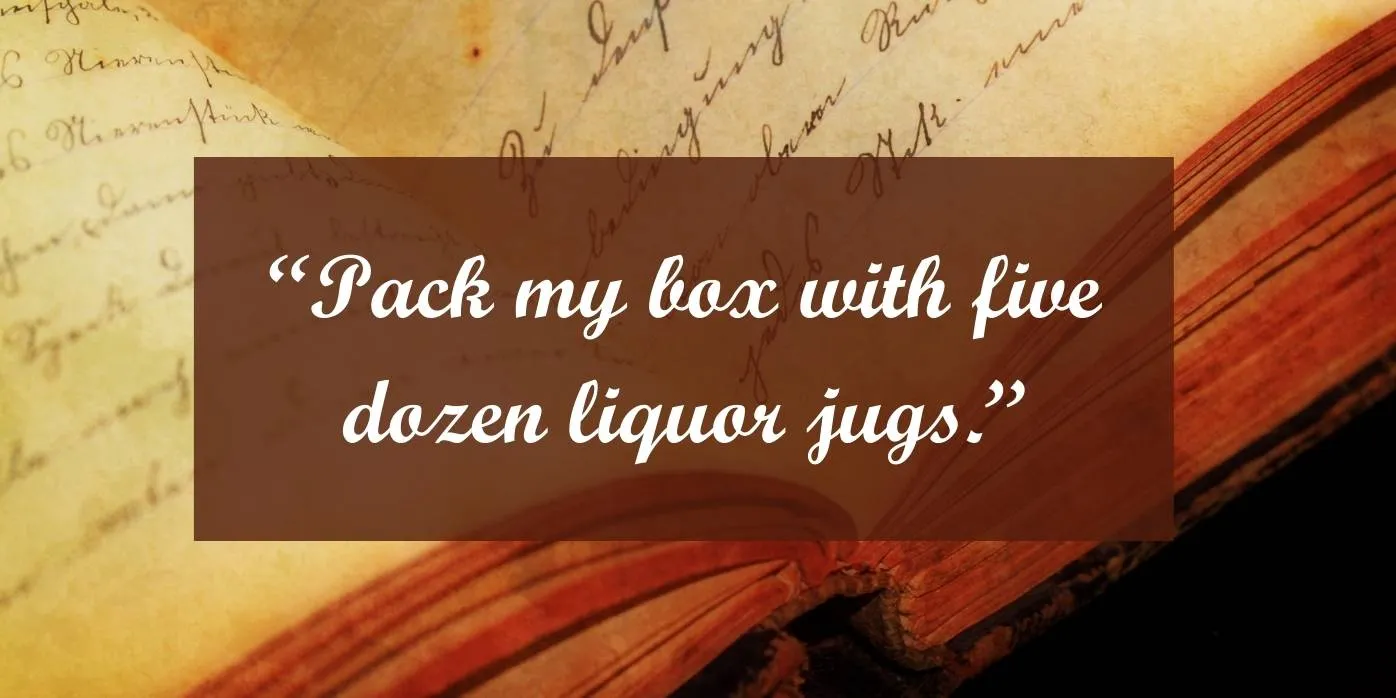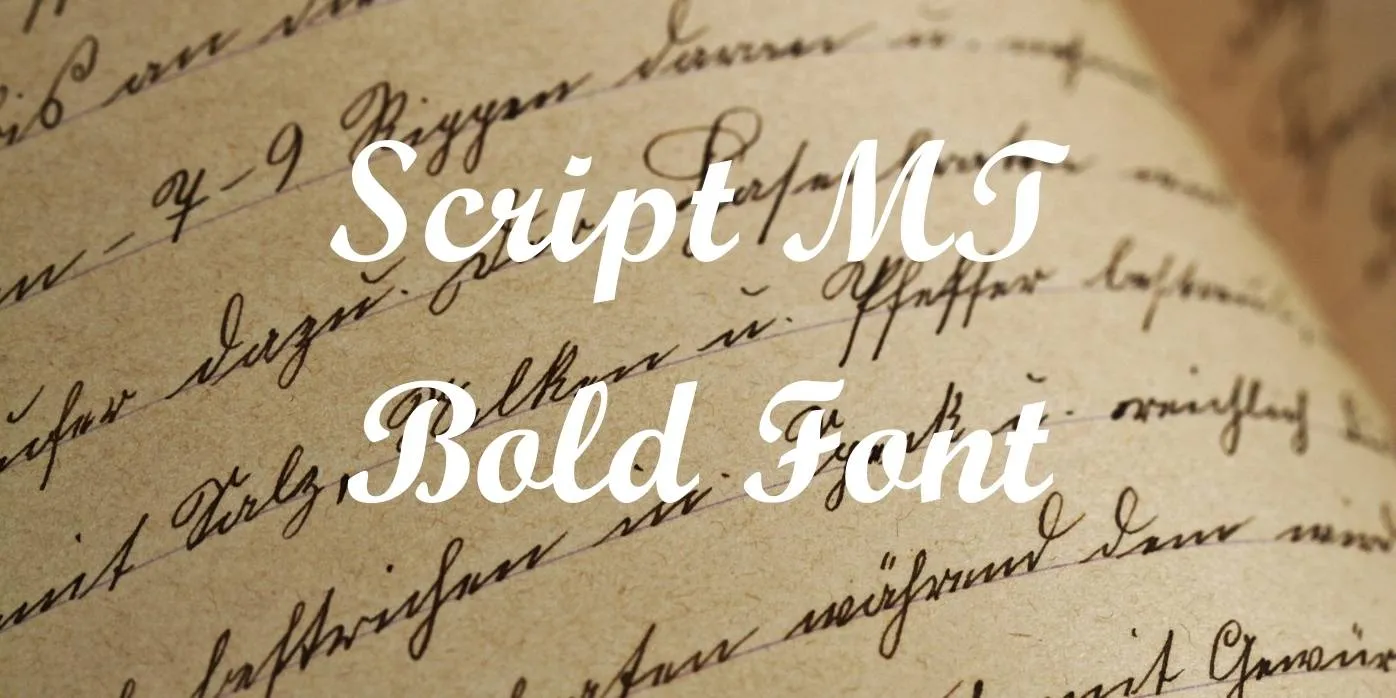
Script MT Bold Font
Script MT Bold Font was designed by a very popular designer named F.H. Steltzer. This typeface belongs to the Script typeface. It is a very useful typeface for creating a unique and stylish feel for your text.
This font is perfect for creative designs. This typeface is specified by the CSS Family. This classy font has two variants these are given regular and italic. The regular variant is more formal and the italic variant is more playful.
You can use either of these two variants according to your need. It has a clean and bold texture. Its copy and paste function is very classic and useful. Braxton Font is similar to this classy font family.
The best part about this font is that it looks great even in small sizes. So, if you are looking for a font that looks great both in large and small sizes, this staggering font is the perfect choice for you. This typeface also comes with some amazing OpenType features. This typeface has keen and bright features.